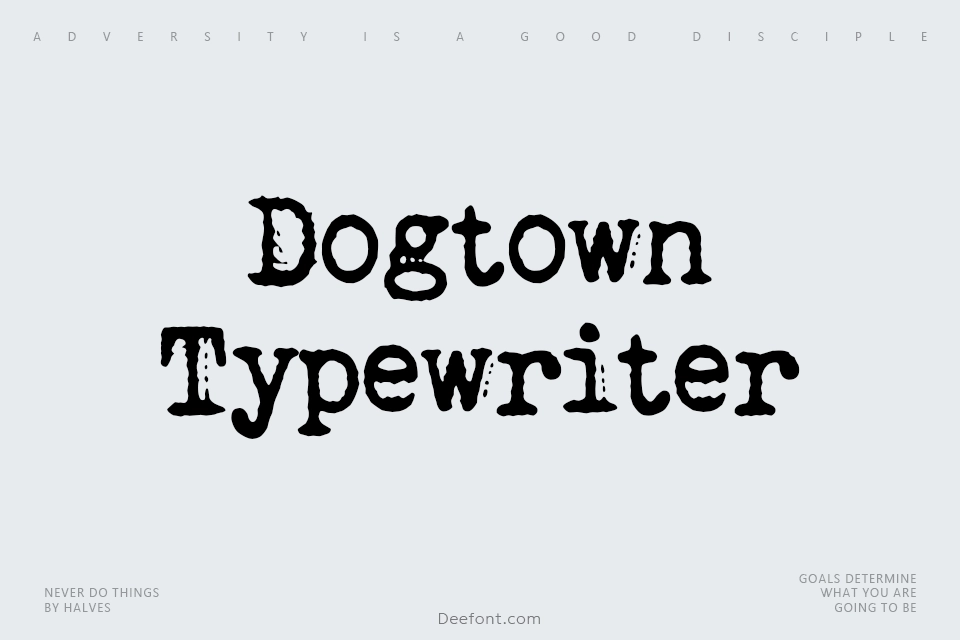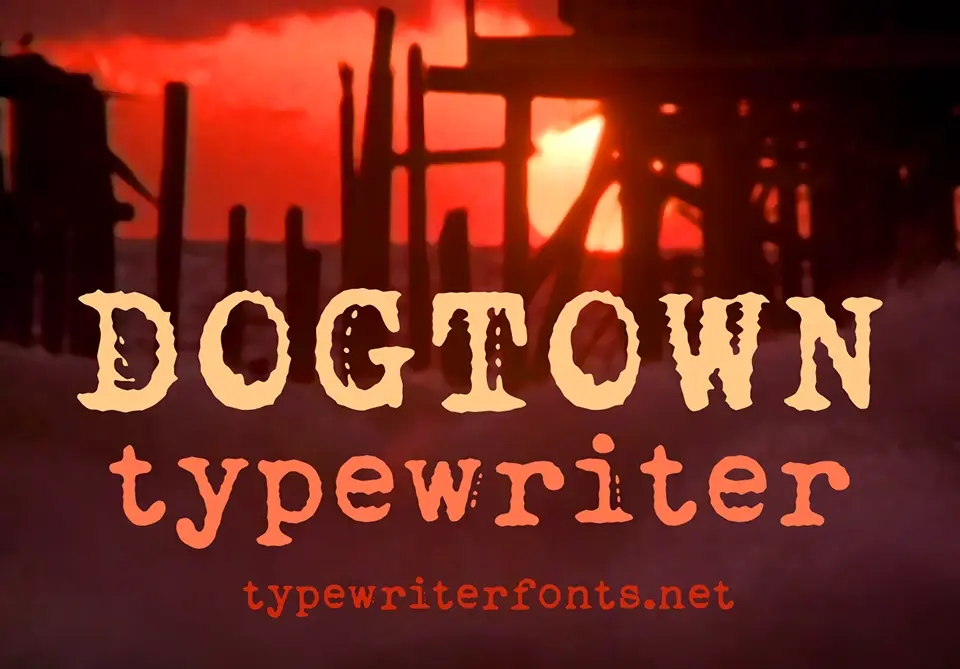
Dogtown Typewriter Font
Dogtown Typewriter is a gritty, vintage-inspired typeface that captures the nostalgic charm of a well-loved typewriter. With slightly uneven, worn characters, this monospaced font evokes authentic urban aesthetics and raw, rebellious style. Perfect for logos, posters, book covers, and projects requiring retro appeal, the font combines classic typewriter character with contemporary design sensibilities for distinctive, eye-catching typography.